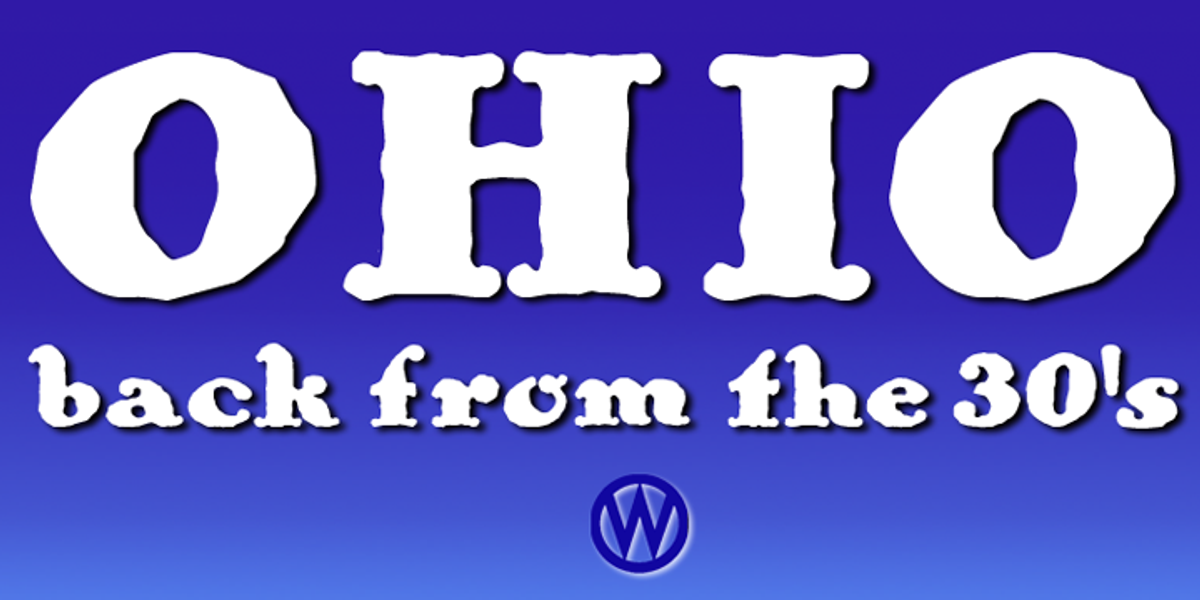
Ohio
Ohio is a serif typeface designed by Erik Spiekermann in the 1980s. It's characterized by its rough, hand-painted aesthetic and draws inspiration from Louis Oppenheimer's designs and the Lo-Type typeface from Berthold. The font was rediscovered by Gert Wiescher while visiting Spiekermann in Berlin.